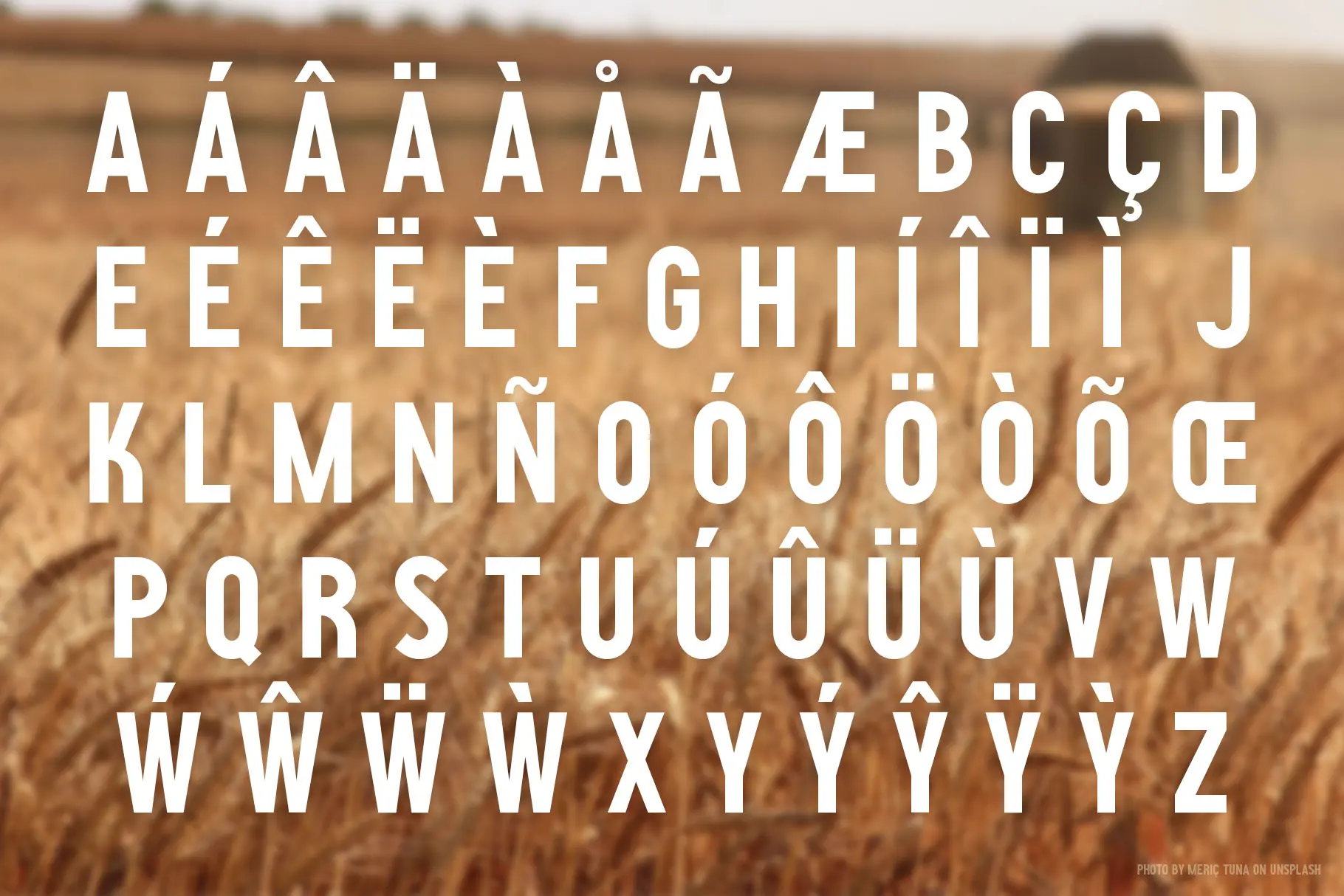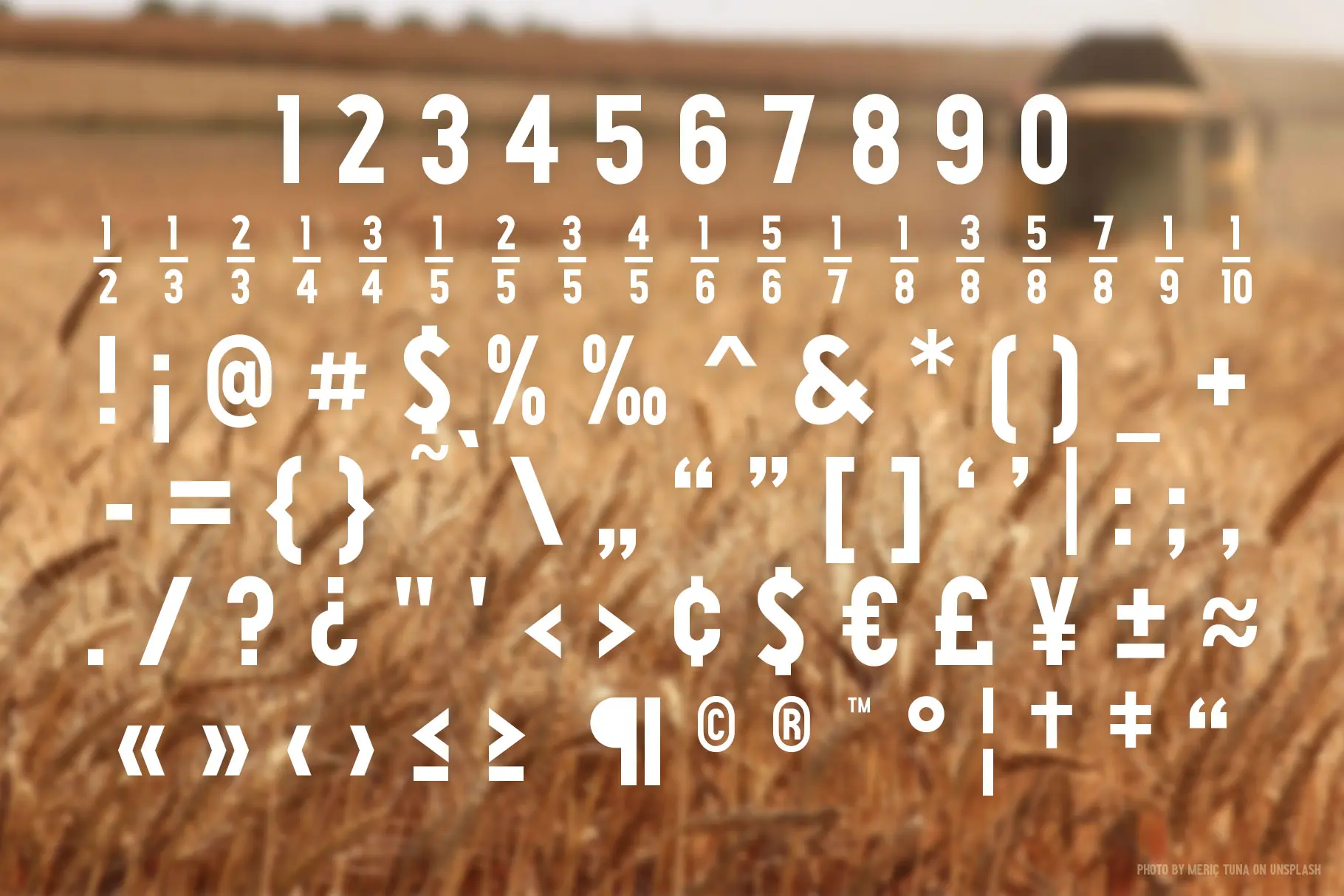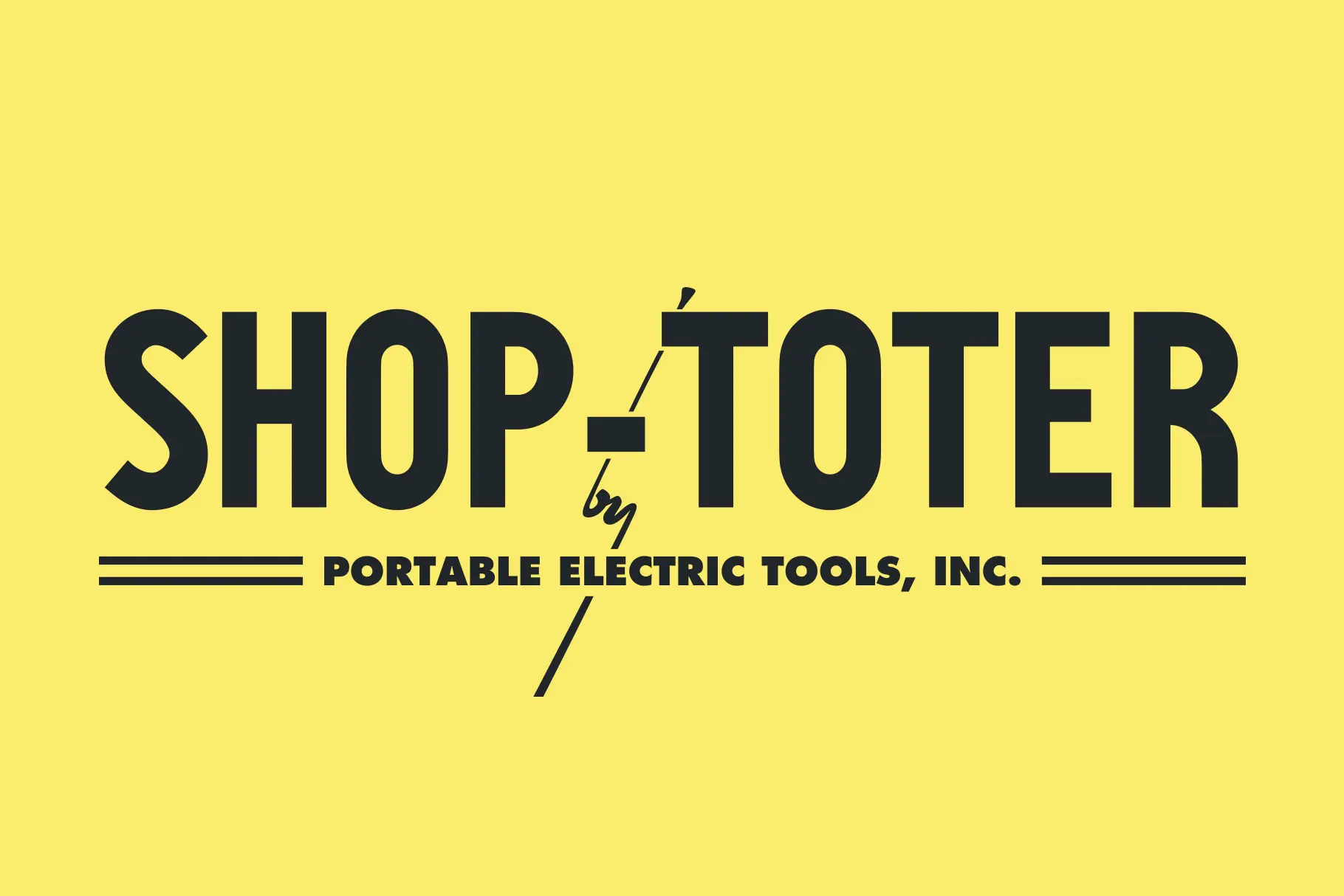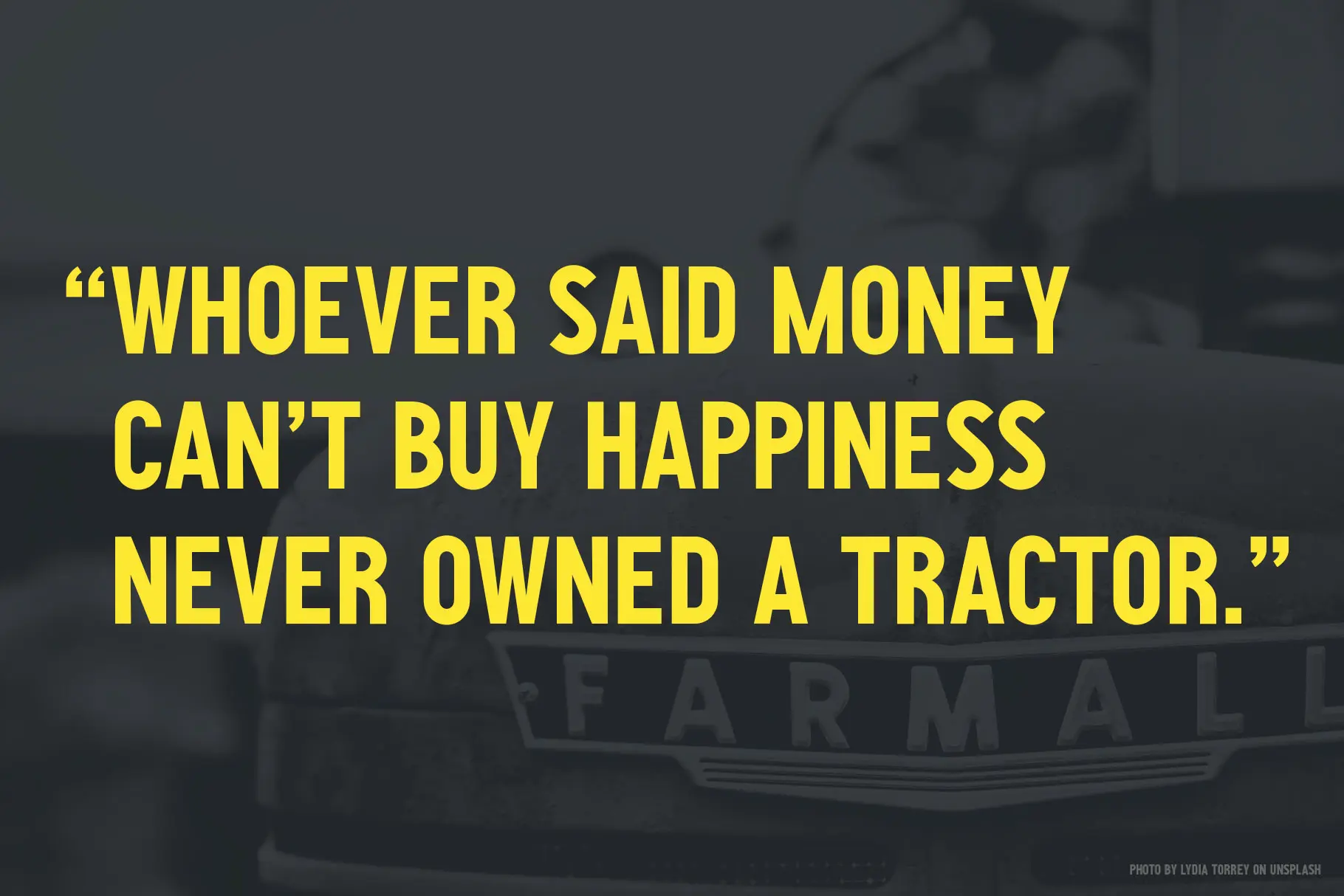
A display typeface rooted in the vernacular letterforms of agricultural and harvest-season ephemera.
Harvest Stout takes its name and energy from the hand-lettered crate labels, seed packets, and market signage of an earlier era of American commerce — type made quickly and memorably, by hand, with purpose.
Best suited to packaging, editorial headlines, and brand work with an artisanal or agricultural character.
Full uppercase and lowercase character sets with numerals and punctuation.